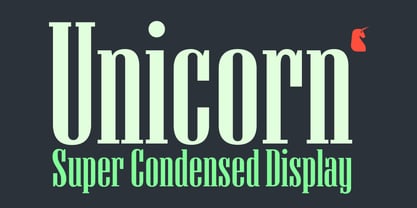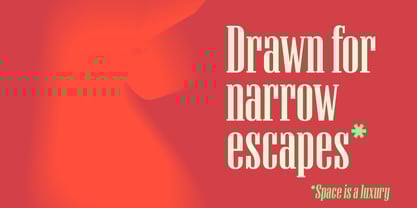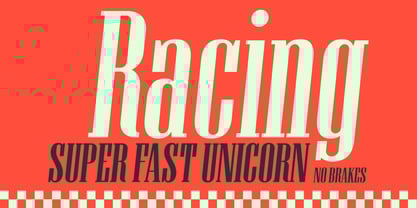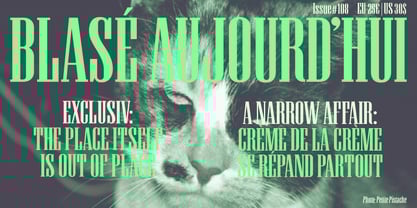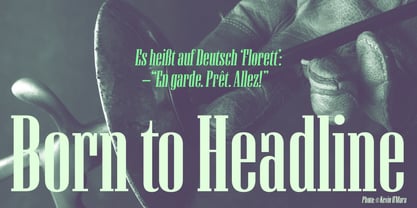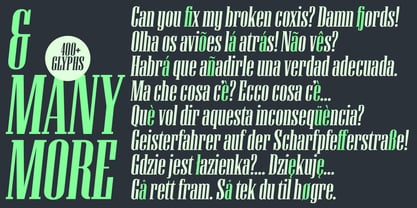
Unicorn
Unicorn is a super-condensed Display font with a subtle dramatic flair that works especially well in titles, headers and editorial design. It was firstly inspired by a lowercase set seen on a furniture ad in Domus (the architecture magazine) #192, from 1943. For maximum drama, use with a bright & smart colour palette. Appointed by the Unicorn. Of course.